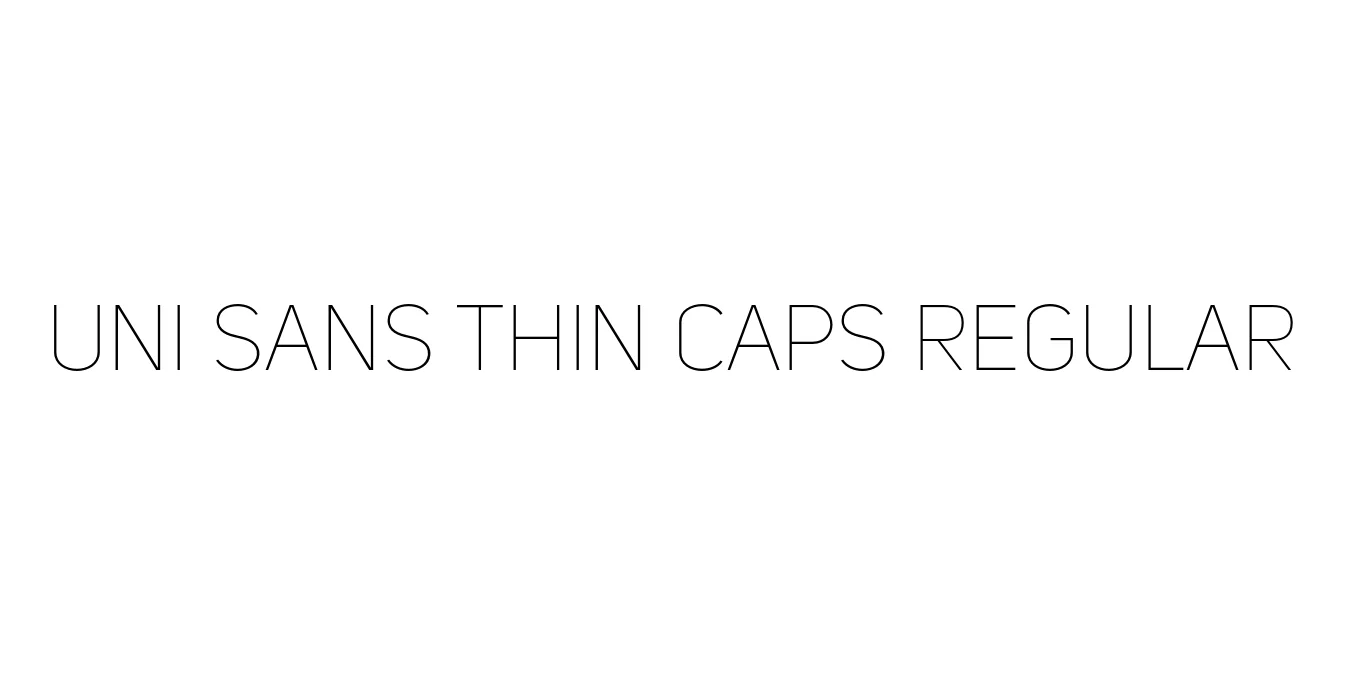
Uni Sans Thin CAPS Regular
Designed by Svet Simov
Uni Sans Thin CAPS Regular is a standout weight from the widely acclaimed Uni Sans family, crafted by Svet Simov under the Bulgarian type foundry Fontfabric. This typeface is recognized globally for its geometric construction, exceptional legibility, and a versatile nature that allows it to function across diverse design mediums. Its clean lines and balanced proportions make it a preferred choice for designers aiming for a contemporary and professional aesthetic.
Specifically, the Thin CAPS variant emphasizes a lightweight stroke combined with an all-capital character set, providing a sophisticated and airy feel to any layout. It is particularly effective in minimalist branding, high-end editorial design, and architectural signage where a sense of elegance and precision is required. Its ability to remain clear at various scales ensures that it maintains visual integrity in both digital and print applications.
Uni Sans Thin CAPS Regular Best Uses
Perfect for creating sleek, modern wordmarks for luxury or tech brands.
Excellent for fashion and lifestyle magazine headers that require an elegant touch.
Provides a clean and legible interface for modern website menus.
Ideal for aesthetic quotes and minimalist promotional overlays.